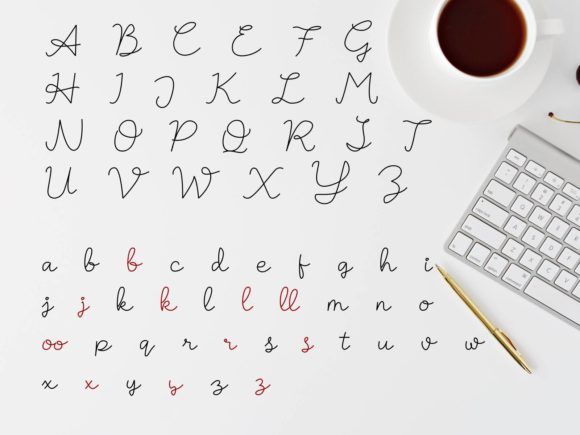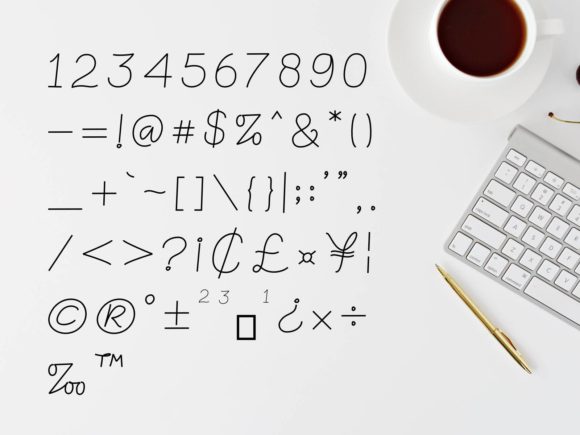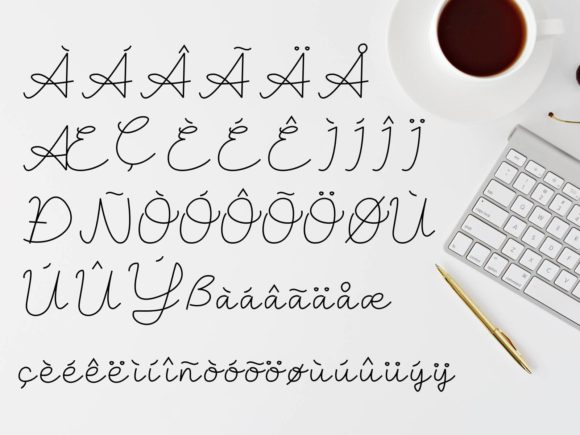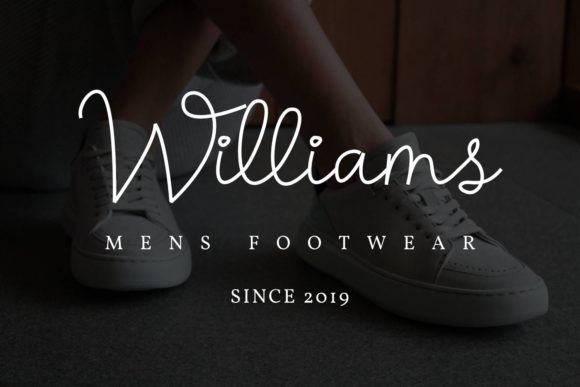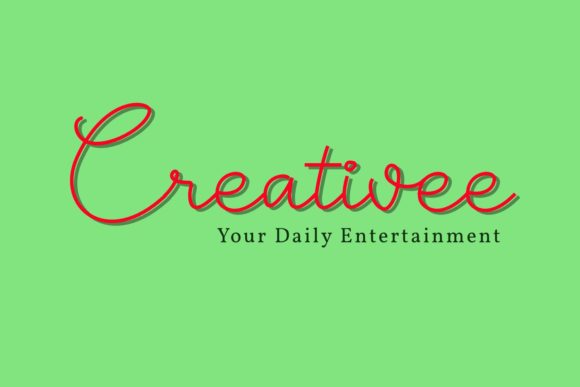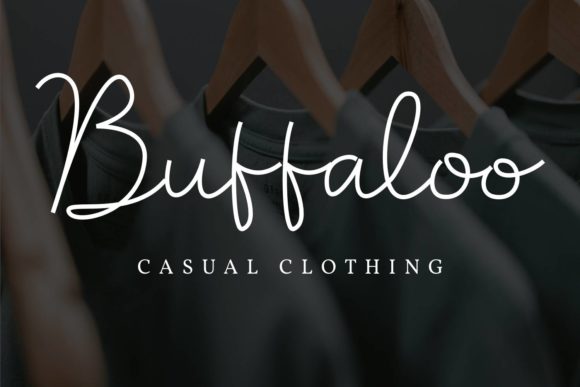
HomeScript FontsWoodwork Font Script Fonts Woodwork Font FacebookXPinterestWhatsApp Woodwork Font Poster 2 Woodwork Font Poster 3 Woodwork Font Poster 4 Woodwork Font Poster 5 Woodwork Font Poster 6 Woodwork Font Poster 7 About Woodwork Font Woodwork is inspired by all things artisan. Fall in love with its unique personal charm! DOWNLOAD ON CREATIVE FABRICAThis font is sold and delivered by Creative Fabrica. Font Canyon may earn a commission if you buy through this link. People also explored Dealova Font Yellow Rabbit Font Elmirta Font Alif Baa Taa Dotted Arrows Two Font Strong Mellow Font Fatrix Haisthy Font Galleria Vintage Crust Font 401 0 TagsWoodwork Font Previous articleBrandly FontNext articleBirdspring Font LEAVE A REPLY Cancel reply Comment: Please enter your comment! Name:* Please enter your name here Email:* You have entered an incorrect email address! Please enter your email address here Website: Save my name, email, and website in this browser for the next time I comment. Personal Use Free Numberpile Personal Use Free Read more about this font Recharge Bold Personal Use Free Read more about this font Hatchill Personal Use Free Read more about this font Homelands Personal Use Free Read more about this font BLOG Best Fonts for T-Shirt Design – Top 2025 Picks In 2025, t-shirt design has become more than just fashion—it's a form of self-expression. Whether you're... To increase your work productivity, choose the most readable fonts. 5 Fonts That Will Dominate Design Trends in 2026 Modern Sans-Serif Fonts That Brands Love in 2025